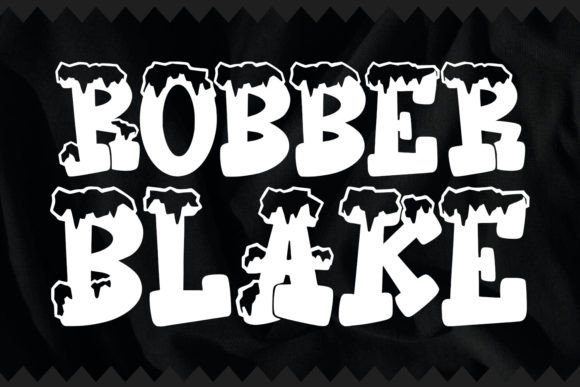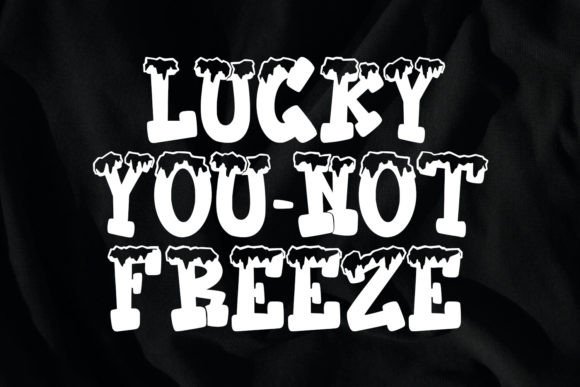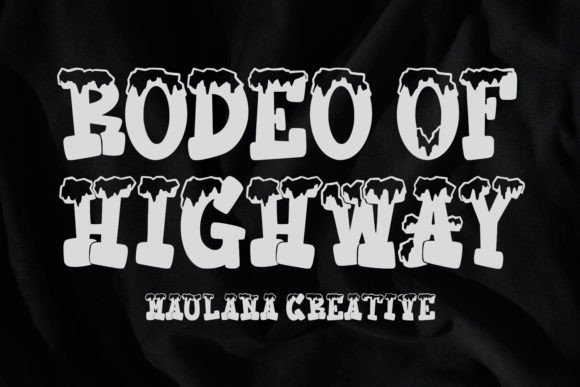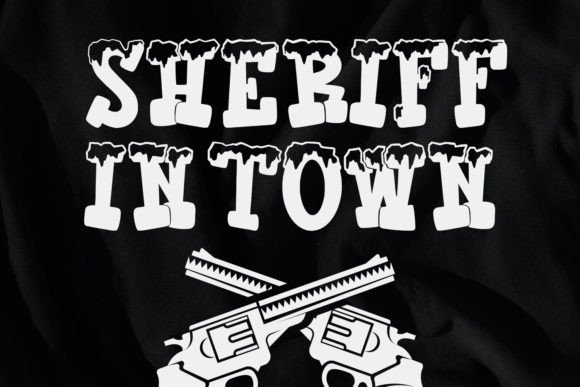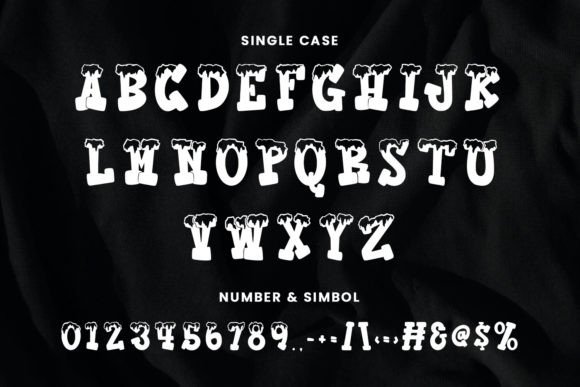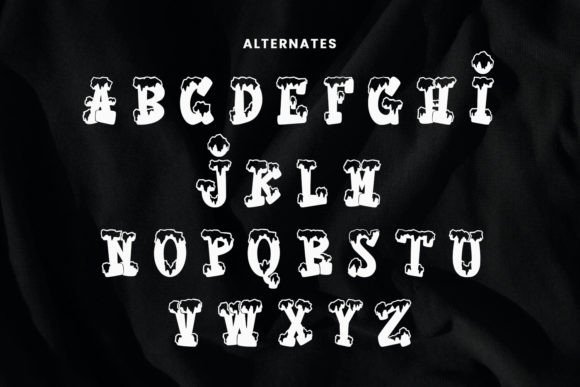
Introduction to Moxwel Snows Font
Have you ever stared at a blank page, waiting for inspiration to strike, only to have it all come together when you stumbled upon the perfect font? That’s exactly what happened to many designers when they discovered the Moxwel Snows Font. This winter playful display font is a game-changer for creatives looking to add a touch of magic to their next project.
With its bold stroke, fun character, and subtle ligatures, the Moxwel Snows Font is a design resource that’s sure to elevate your work. Whether you’re working on a logo design, social media campaign, or book title, this high-quality font is the perfect addition to your toolkit. And the best part? It’s available for free download, making it an accessible resource for designers of all levels.
What sets the Moxwel Snows Font apart is its versatility. Not only can you use it for short text, but also for longer passages, and even as a secondary font to add depth and interest to your design. Plus, with support for over 100 languages, you can use it for projects that require multilingual text. Get ready to unleash your creativity with the Moxwel Snows Font!
- Designed with a unique, modern aesthetic, making it perfect for contemporary design projects.
Honest Review: Moxwel Snows Font
I recently came across the Moxwel Snows Font, and I must say it’s been a game-changer for my design projects. As a designer, I’m always on the lookout for high-quality fonts that can elevate my creative work. This font did not disappoint.
Here are some things that I love about the Moxwel Snows Font:
- ✨ High-quality design: The font is sleek, modern, and looks amazing in both digital and print formats.
- ⚠️ Limited character set: The font only includes a basic set of characters, which may not be suitable for more complex design projects.
- ⚠️ Limited customization options: While the font is beautiful as is, there are no customization options available, which may limit its use in certain design contexts.
Overall, I’m really impressed with the Moxwel Snows Font. It’s a great addition to any designer’s toolkit, and I highly recommend it for any creative project that requires a high-quality font. Just be aware of the limitations mentioned above, and you’ll be good to go!
Moxwel Snows Font is ideal for a variety of creative projects, including social media graphics, presentations, and documents. Its elegant design and high-quality performance make it a popular choice among designers and creatives.